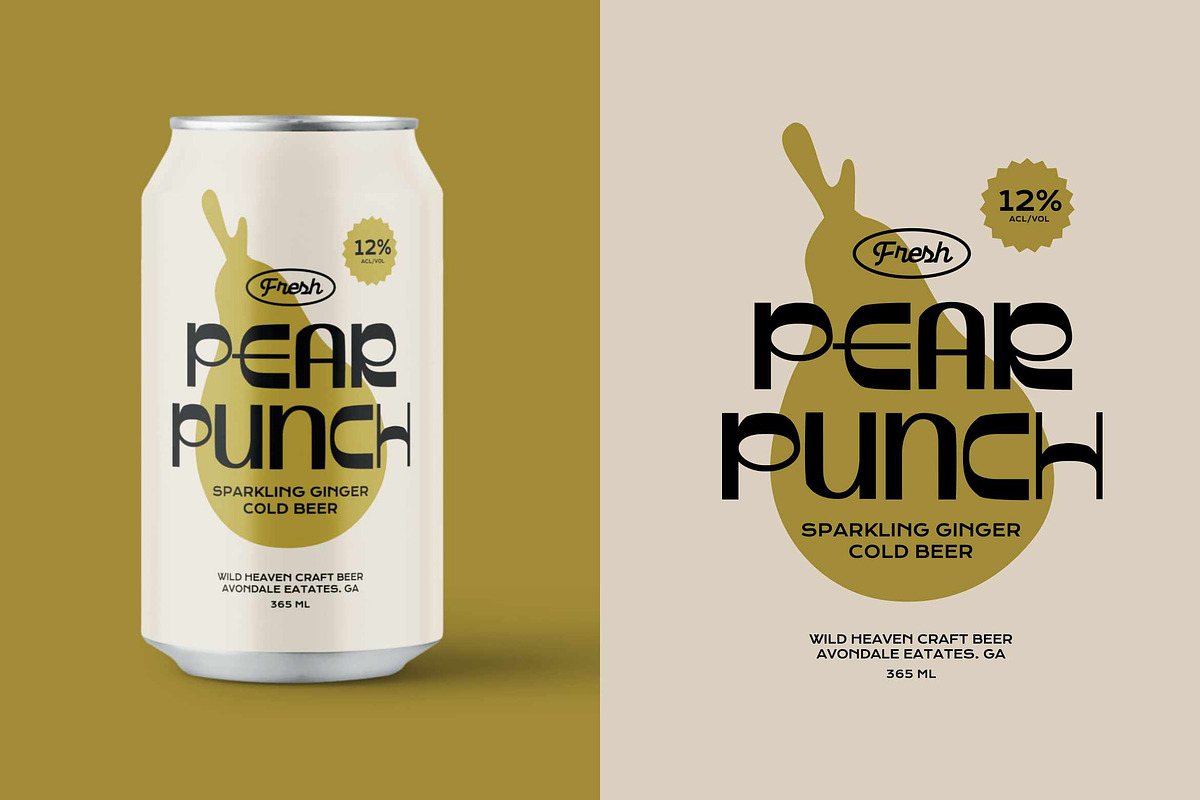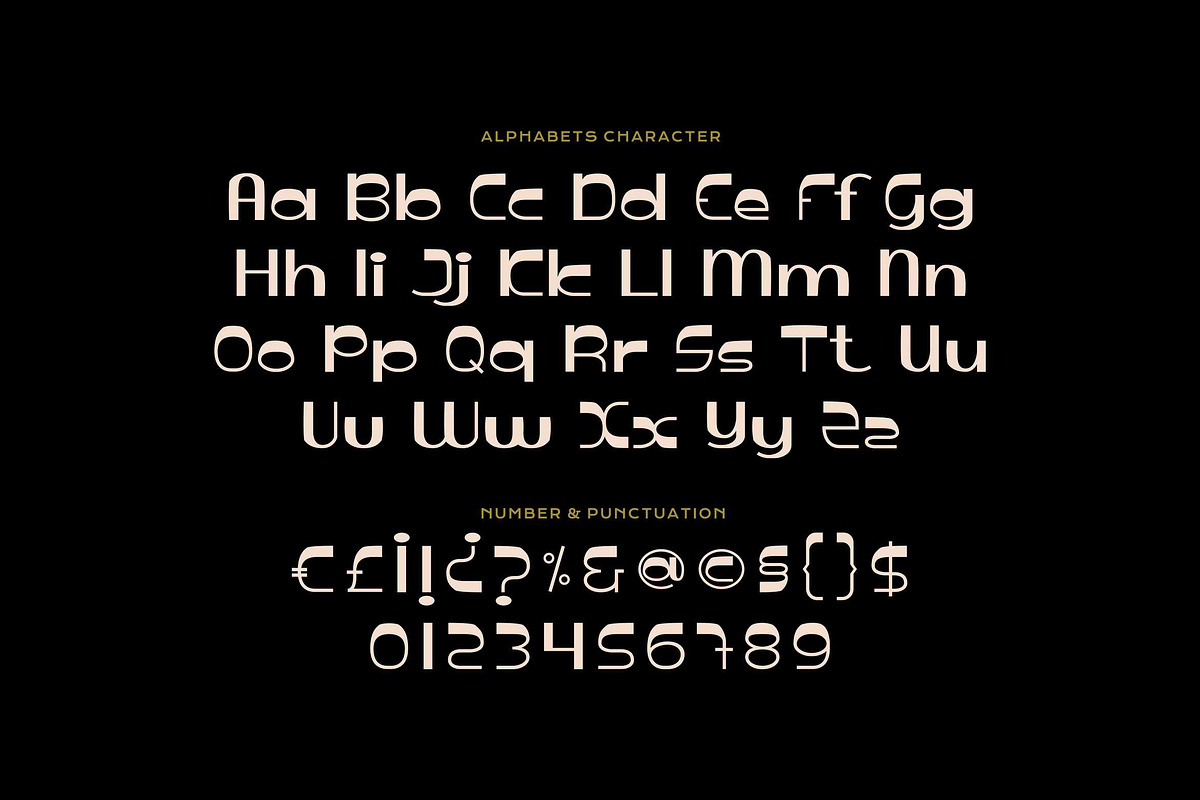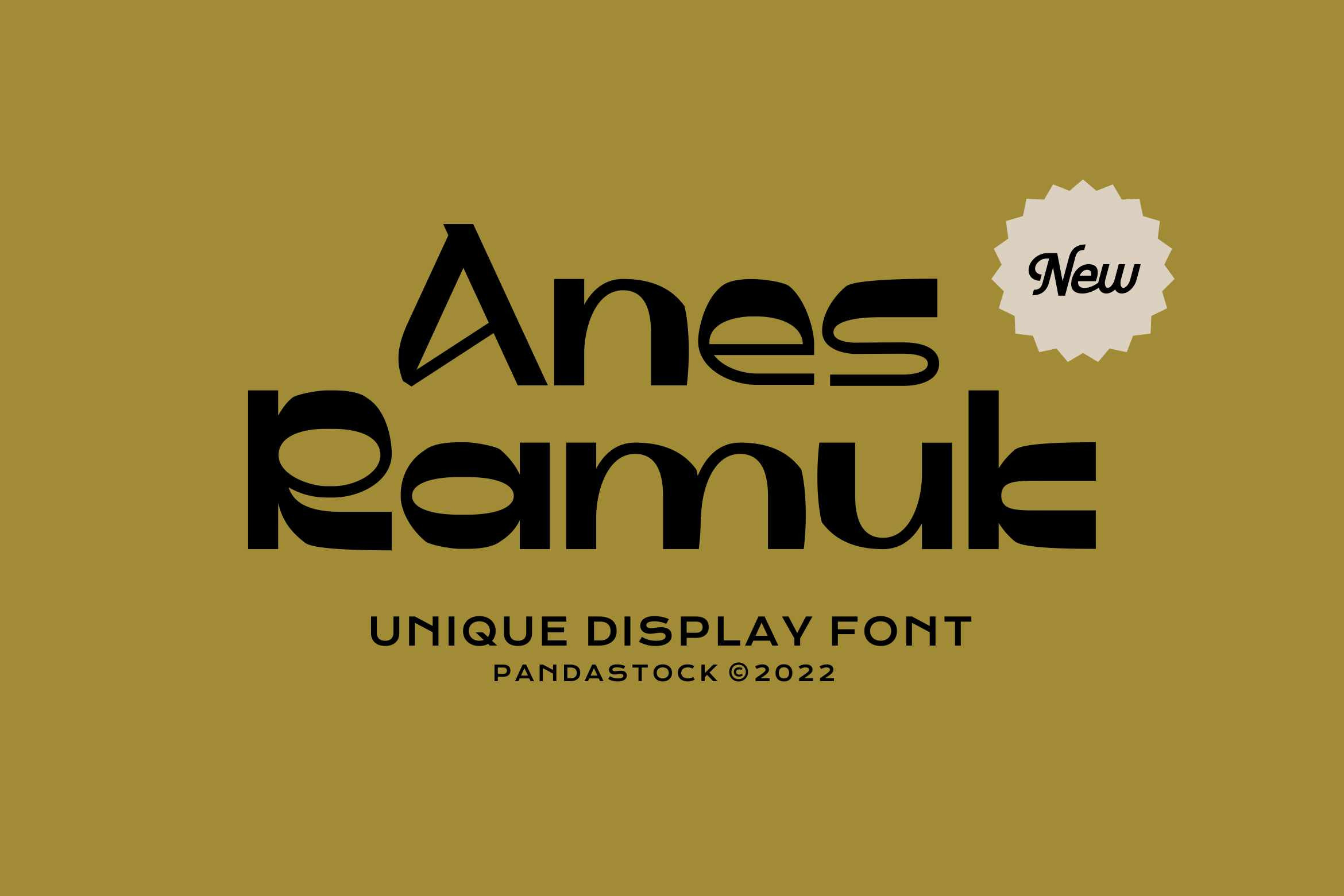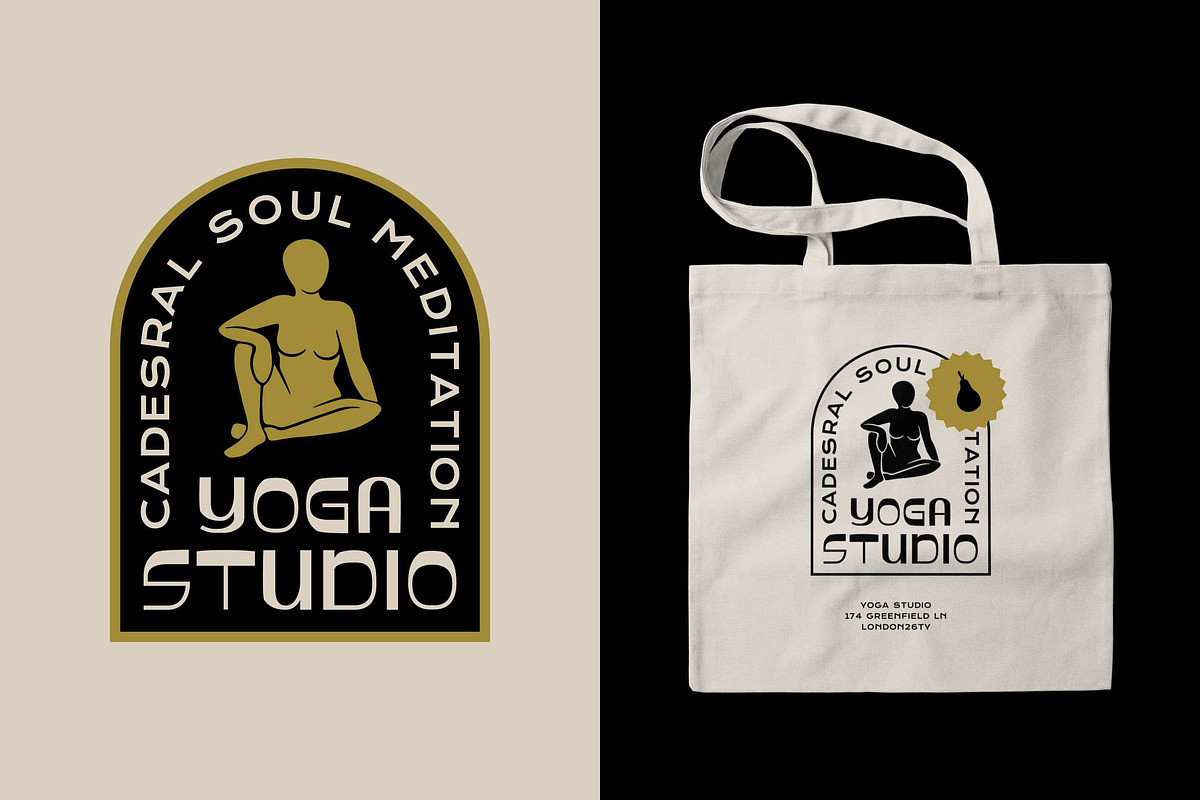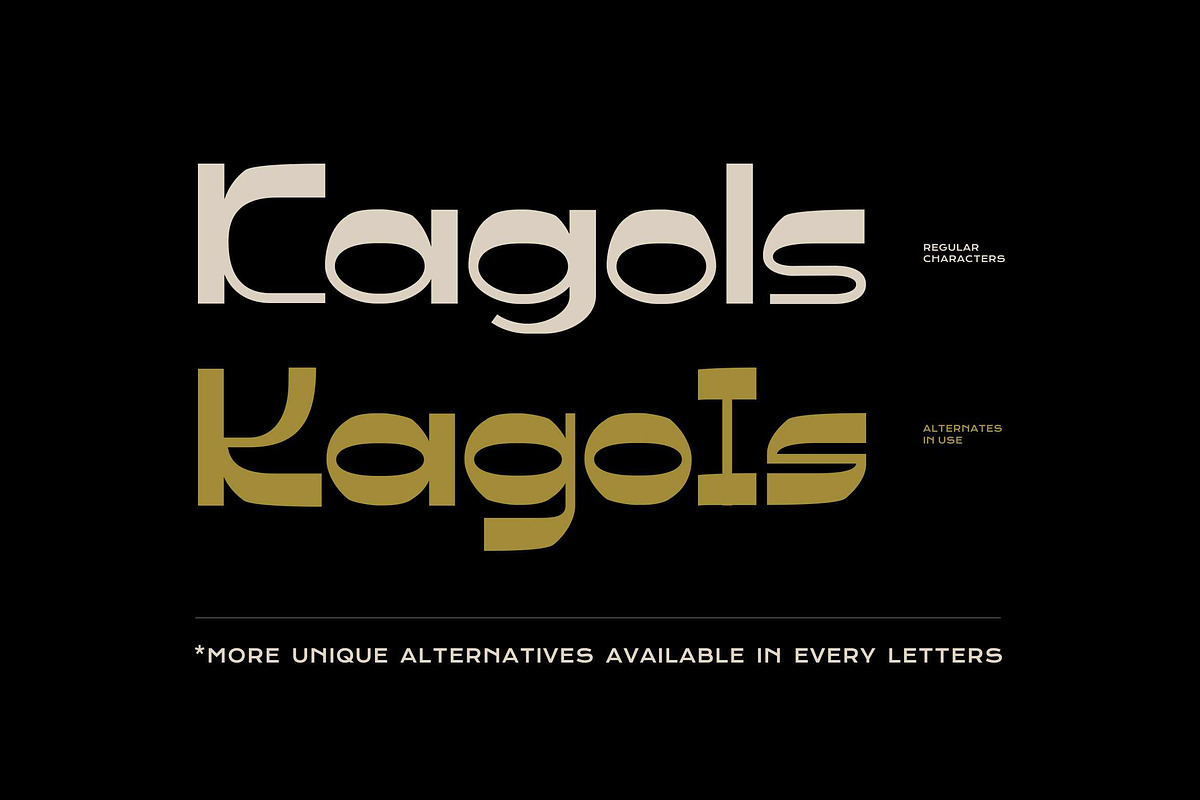
Anes Ramuk - Modern Display Font
Anes Ramuk is a groovy display font that blends retro charm with a modern aesthetic. Each character is crafted with unique proportions, balancing curves, sharp edges, and modular strokes.
Ideal for branding, packaging, posters, editorial design, merchandise, and digital interfaces, Anes Ramuk is more than a font, it's a statement. Its bold yet versatile personality adapts seamlessly to modern aesthetics, retro futuristic vibes, and experimental branding systems.